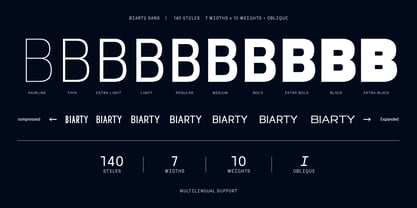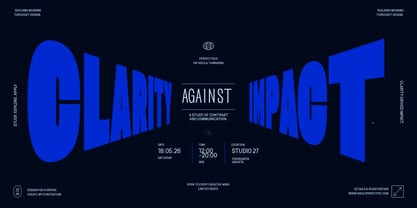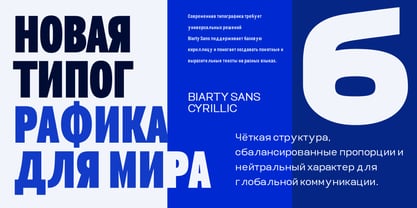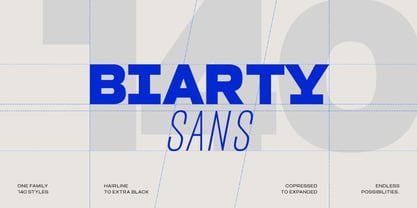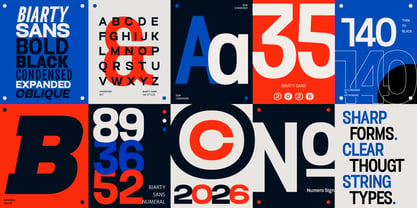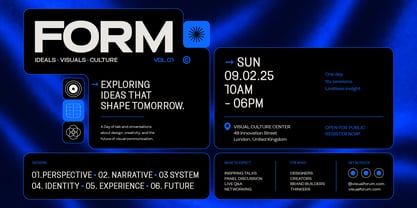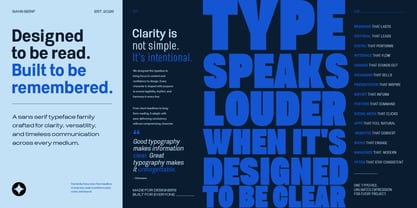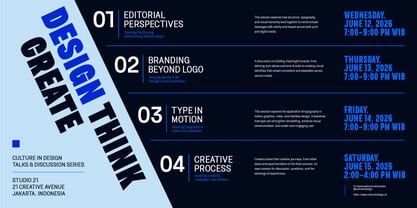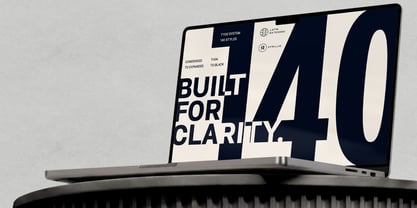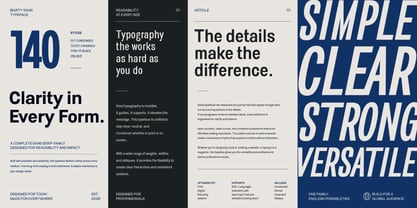
Biarty Sans
by Nollev
The Biarty Sans Font Family was designed by Akhmad Hidayat and published by Nollev. Biarty Sans contains 140 styles and family package options. More about this family
Biarty Sans is a contemporary sans-serif superfamily built for modern branding, editorial design, digital products, and visual communication. Featuring 140 styles across a wide range of weights, widths, and obliques, it offers exceptional flexibility for both expressive display typography and highly readable text settings.
With its clean geometry, balanced proportions, and confident personality, Biarty Sans adapts effortlessly to a variety of creative applications—from brand identities and packaging to websites, publications, and large-scale campaigns. Designed as a comprehensive type system, it helps create consistent, distinctive, and professional visual experiences across every medium.
Designers: Akhmad Hidayat
Foundry: Nollev